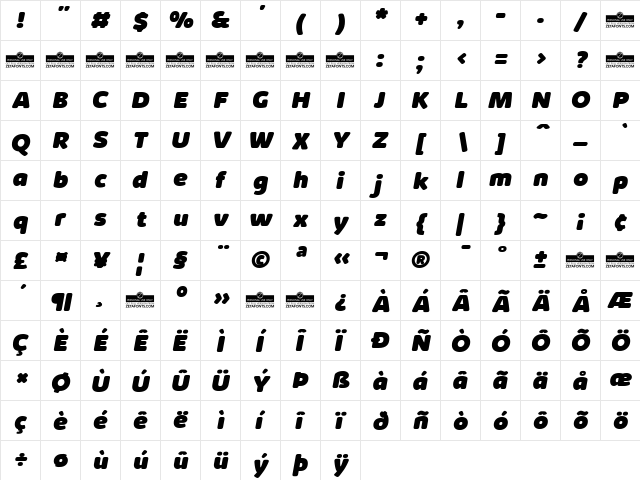
Kabrio Soft Heavy Italic
| Foundry | studio kmzero |
| Designer | Corimo Lorenzo Pancini |
Design Context for Kabrio Soft Typeface
Kabrio Soft takes a measured approach to typography — its balanced proportions and neutral character make it a reliable workhorse for both digital and print work. The dynamic lean of this cut emphasises speed and emphasis in any layout.